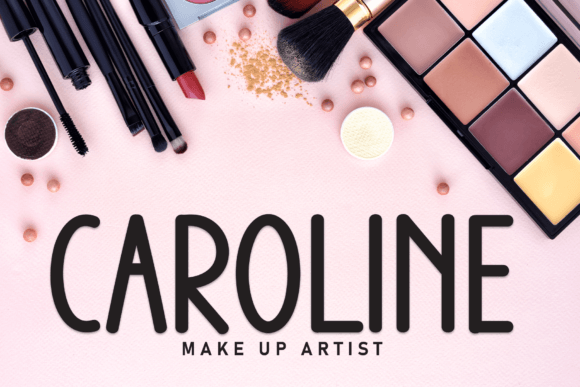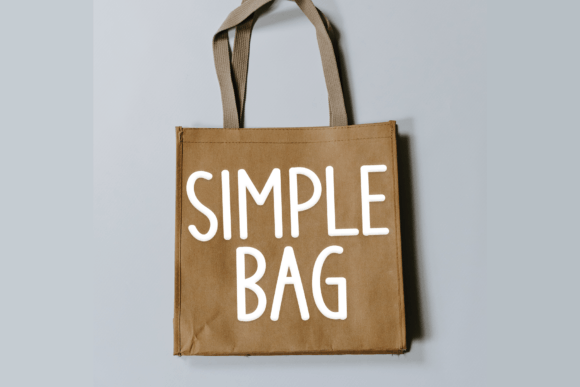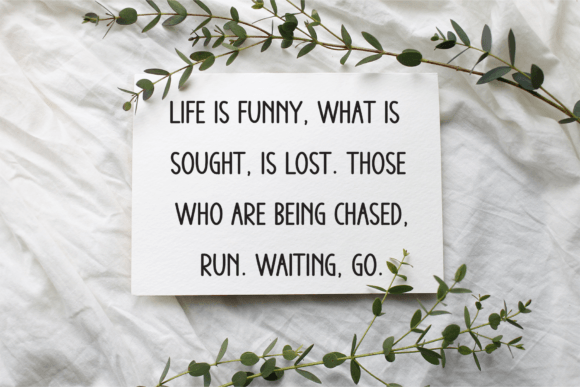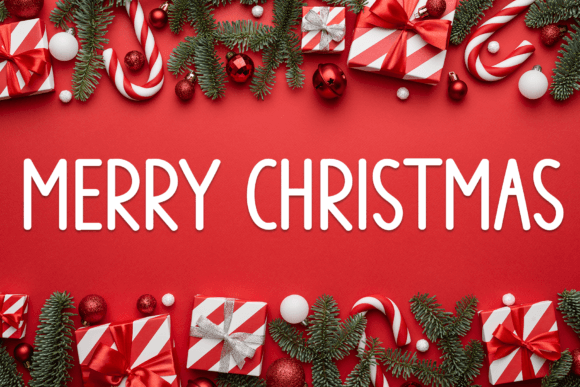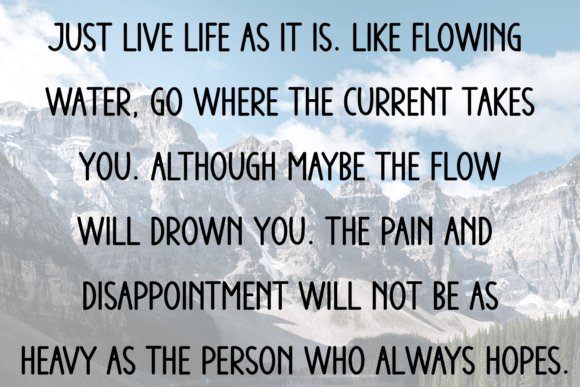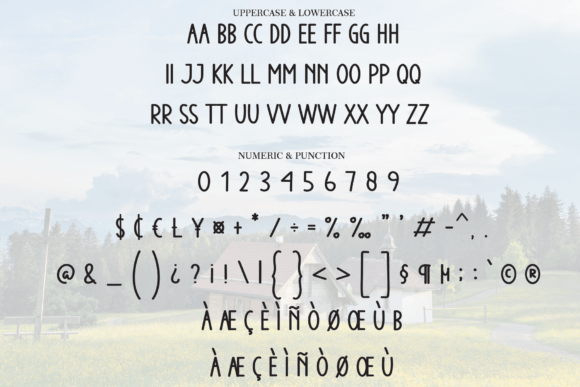
Introducing Farmhouse Font: The Sweet and Friendly Handwritten Font for Your Design Needs
Are you looking for a font that can add a touch of warmth and personality to your designs? Look no further than Farmhouse Font, a sweet and friendly handwritten font that’s perfect for creating beautiful wedding invitations, cards, and other designs that require a fun and playful touch.
Farmhouse Font is a fresh and cute handwritten font that’s designed to bring a sense of joy and whimsy to your designs. With its smooth and flowing lines, this font is ideal for creating a wide range of designs, from wedding invitations and cards to posters, flyers, and more.
Characteristics of Farmhouse Font
So, what makes Farmhouse Font so special? Here are just a few of its key characteristics:
- Handwritten style: Farmhouse Font has a beautiful, handwritten style that’s perfect for adding a personal touch to your designs.
- Sweet and friendly: This font has a warm and inviting feel that’s sure to make your designs feel more approachable and engaging.
- Fresh and cute: With its playful and charming vibe, Farmhouse Font is perfect for designs that require a fun and youthful touch.
- Versatile: Whether you’re designing a wedding invitation or a children’s book, Farmhouse Font is versatile enough to work in a wide range of design contexts.
Uses for Farmhouse Font
So, what can you use Farmhouse Font for? The possibilities are endless! Here are just a few ideas to get you started:
- Wedding invitations: Add a touch of romance and whimsy to your wedding invitations with Farmhouse Font.
- Cards and stationery: Use Farmhouse Font to create beautiful, one-of-a-kind cards and stationery for any occasion.
- Posters and flyers: Add a playful touch to your posters and flyers with Farmhouse Font.
- Children’s books and educational materials: Farmhouse Font is perfect for creating engaging and interactive children’s books and educational materials.
- Branding and packaging: Use Farmhouse Font to add a personal touch to your brand’s packaging and marketing materials.
Why Choose Farmhouse Font?
So, why should you choose Farmhouse Font for your design needs? Here are just a few reasons:
- Unique and eye-catching: Farmhouse Font is a unique and eye-catching font that’s sure to make your designs stand out.
- Easy to read: Despite its playful style, Farmhouse Font is easy to read and understand, making it perfect for designs that require a clear and concise message.
- Customizable: Farmhouse Font can be customized to fit your design needs, making it easy to use in a wide range of contexts.
- High-quality: Farmhouse Font is a high-quality font that’s designed to deliver exceptional results in any design context.
In conclusion, Farmhouse Font is a sweet and friendly handwritten font that’s perfect for adding a touch of warmth and personality to your designs. With its smooth and flowing lines, playful vibe, and versatility, this font is ideal for creating a wide range of designs, from wedding invitations and cards to posters, flyers, and more. So why not give Farmhouse Font a try today and see the difference it can make in your designs?
Here are a few tips for using Farmhouse Font in your designs:
- Pair it with other fonts: Farmhouse Font pairs well with a variety of other fonts, including serif and sans-serif fonts.
- Experiment with colors: Farmhouse Font looks great in a wide range of colors, from bright and bold to soft and pastel.
- Use it in combination with images: Farmhouse Font looks great in combination with images, especially those with a natural or rustic theme.
By following these tips and using Farmhouse Font in your designs, you can create beautiful and engaging designs that are sure to impress.